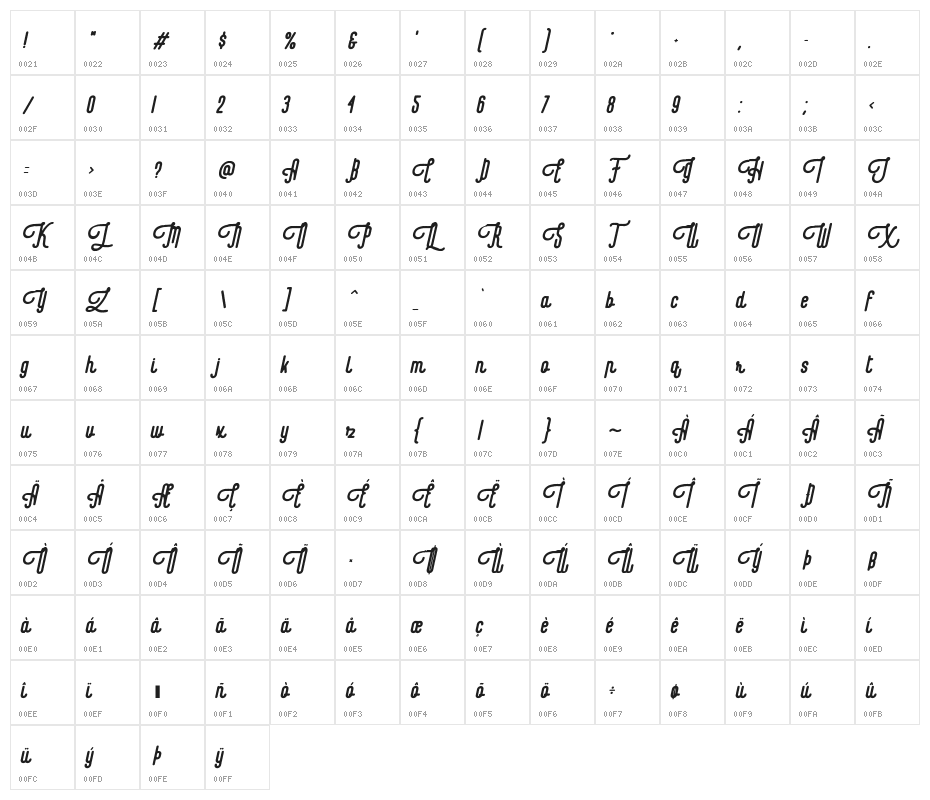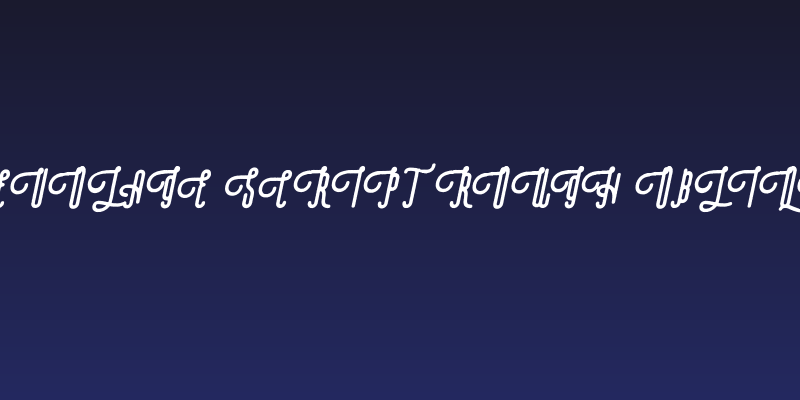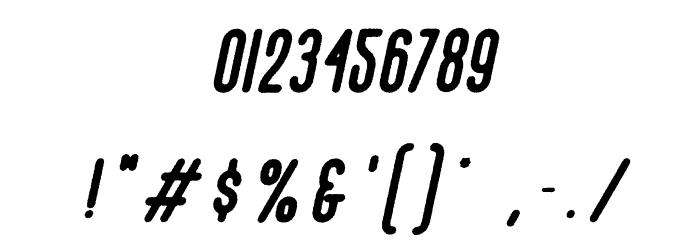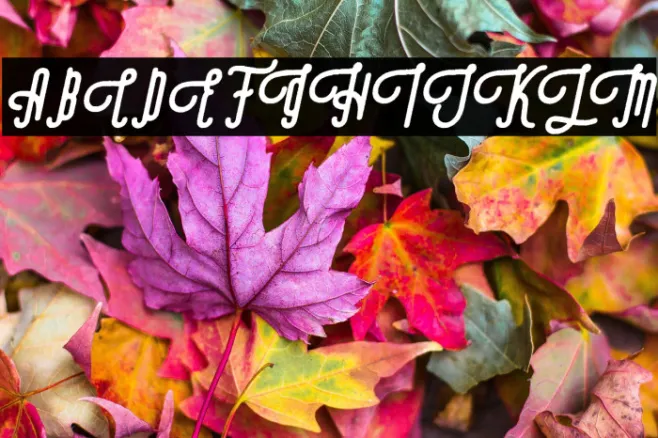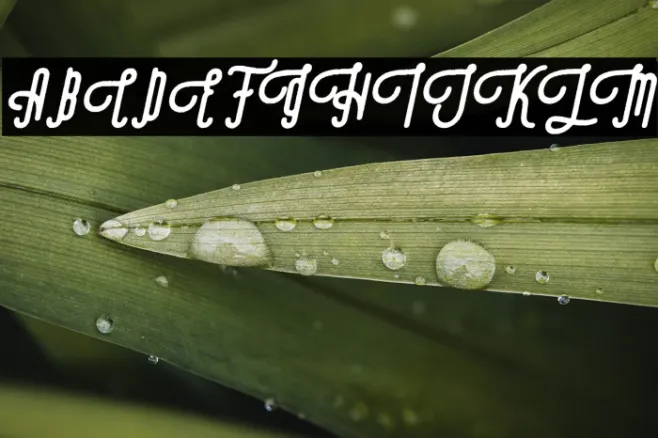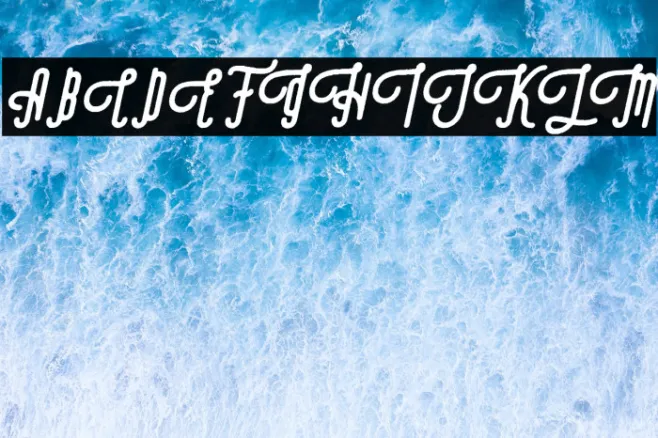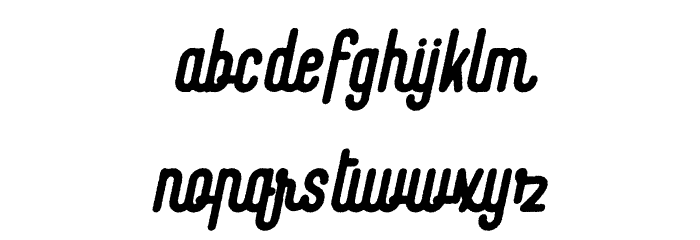
Revolage Script Rough Oblique Font
Revolage Script Rough Oblique Description
This font features a dynamic and energetic script style with a rough, hand-drawn appearance. The letters are oblique, giving them a forward-leaning, italicized look that adds a sense of movement and fluidity. The strokes are bold and slightly irregular, contributing to a textured, rustic feel. The uppercase letters are distinct with unique flourishes, while the lowercase letters maintain a consistent flow. The numerals and special characters complement the alphabet with similar stylistic elements, ensuring a cohesive look across all text. This font's playful yet sophisticated design makes it suitable for creative projects that require a touch of personality.